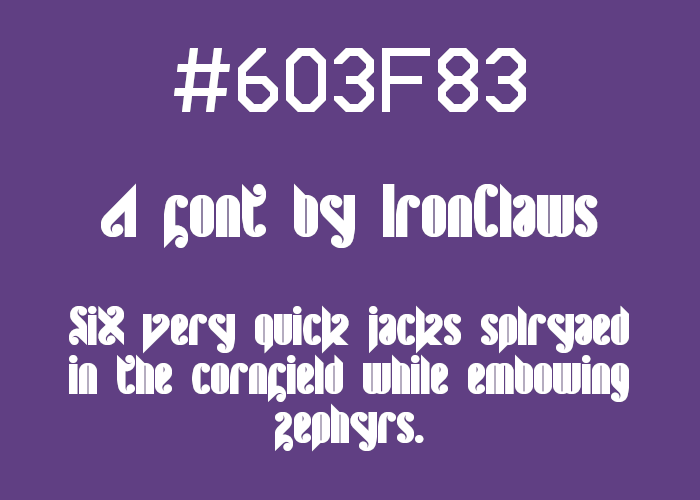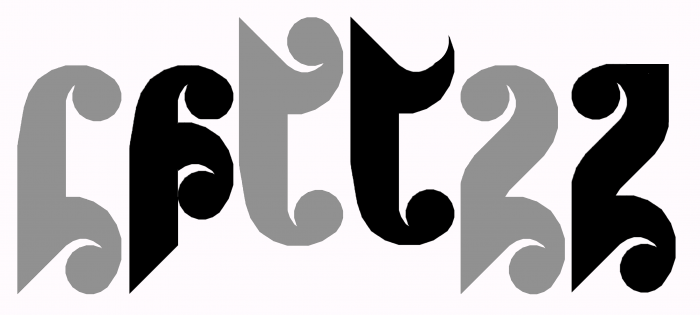
I'm with Yautja. My only "but" is that here you have some glyphs that are a little difficult for me to read, so what do you think of these little alternates that I propose?
Sample of this font:
This font did not support digits, so I had to use the Lentariso font for the name.
@elmoyenique, I've changed F,f, Z,z and added the alternative t to À. Thanks for the suggestions. I got a little carried away with making all the letters look as similar as possible.